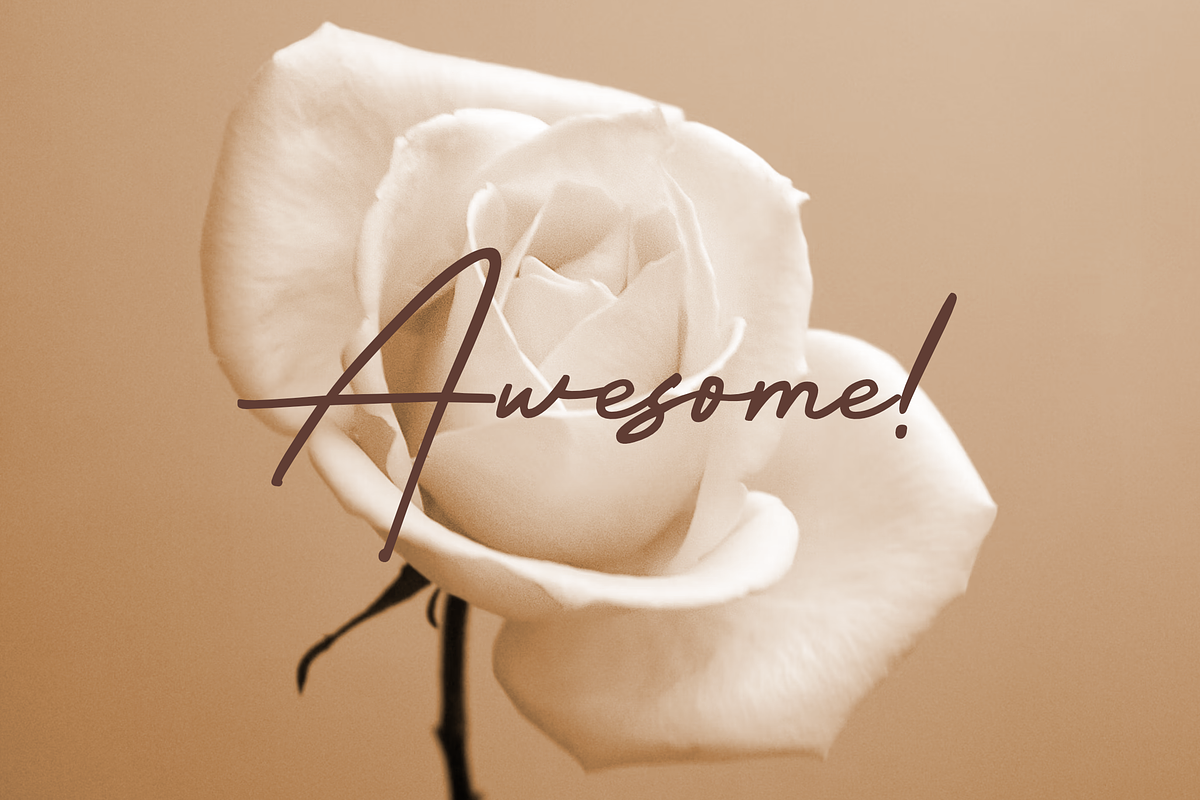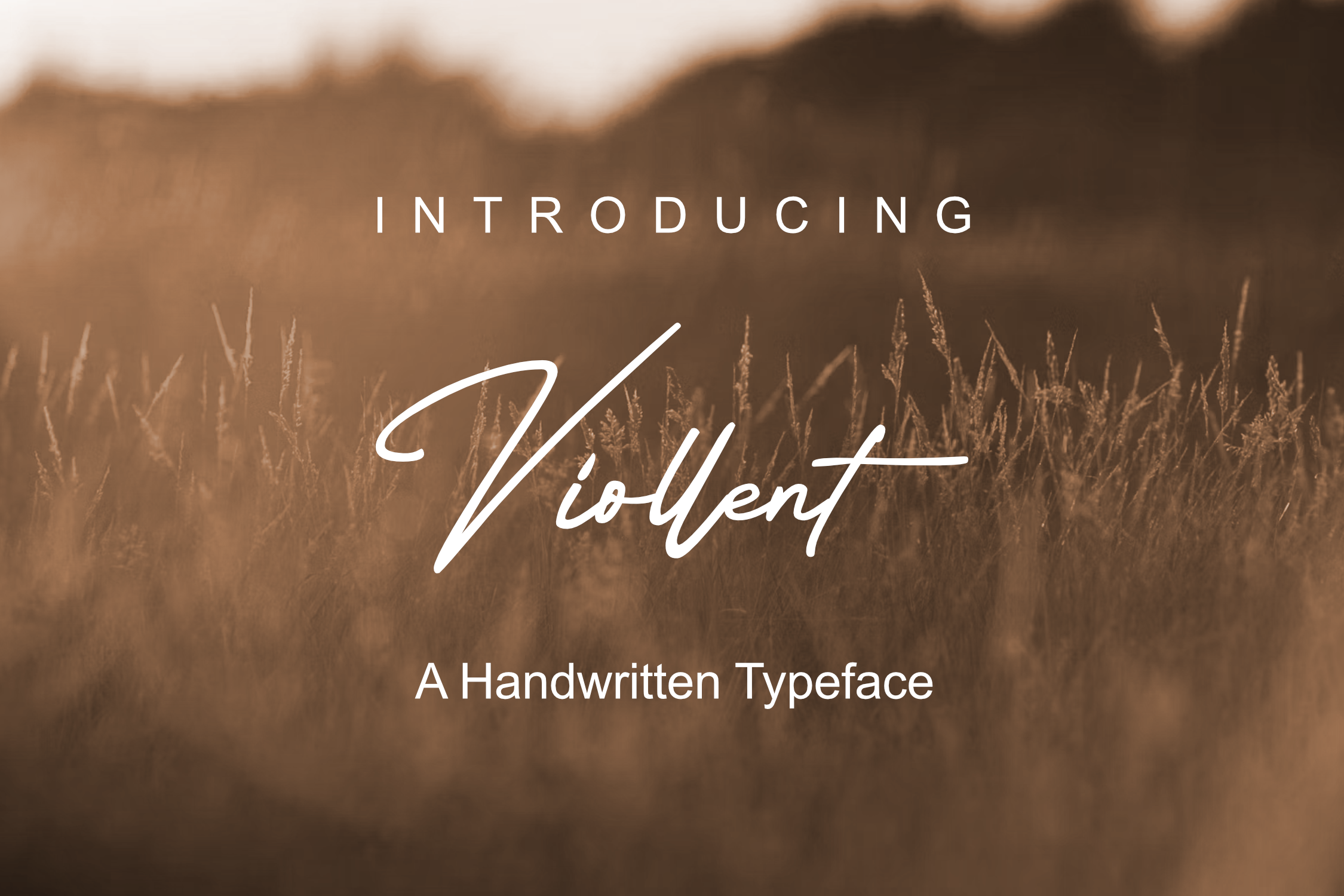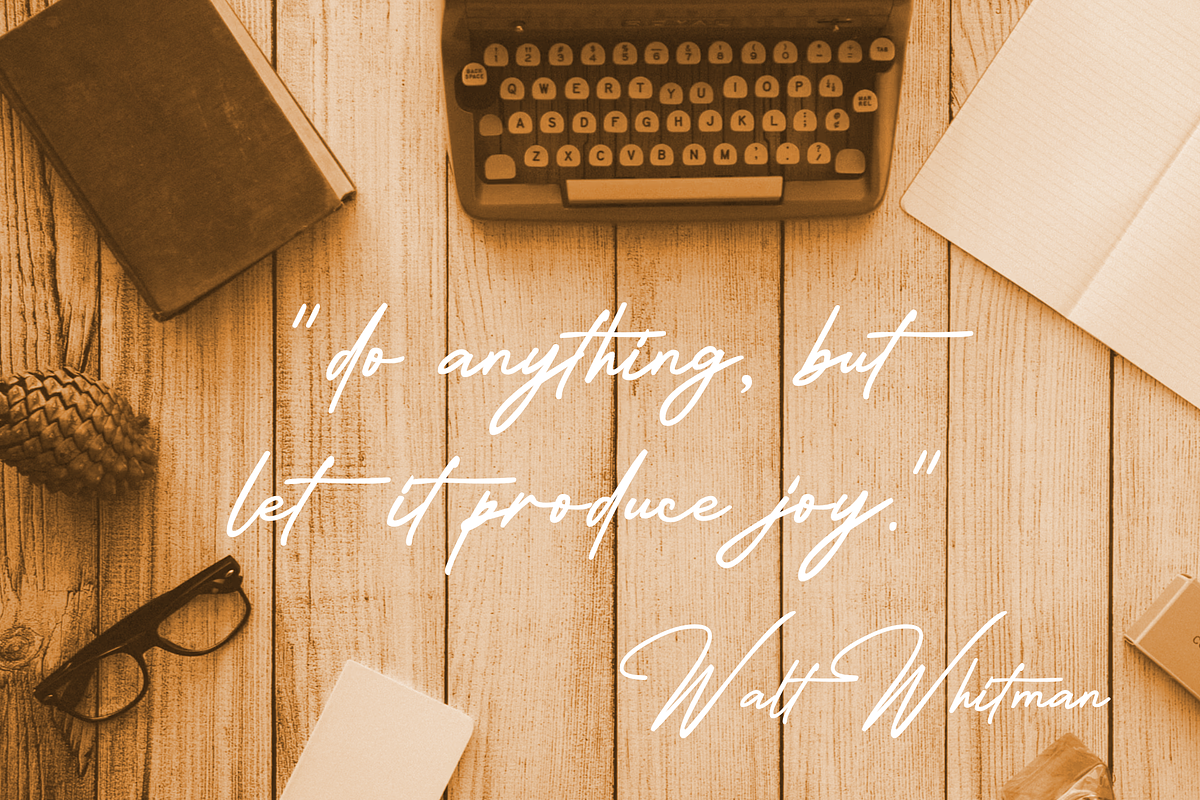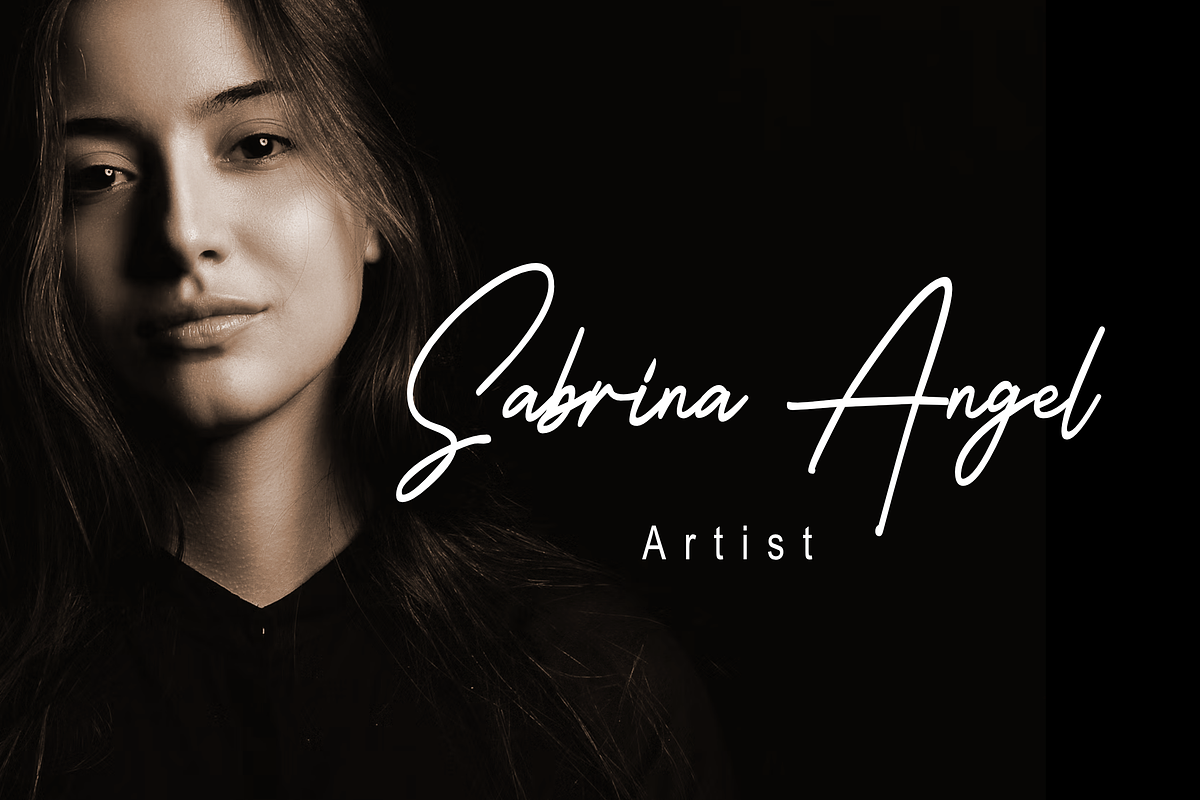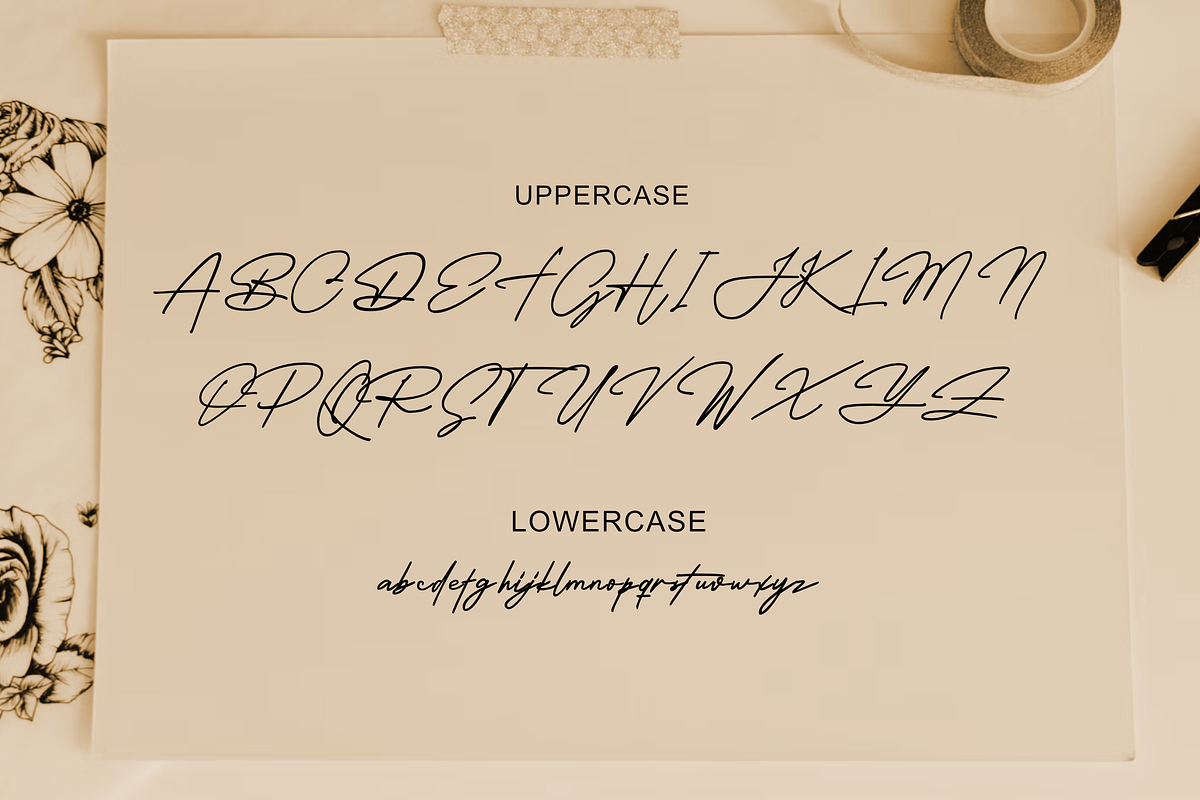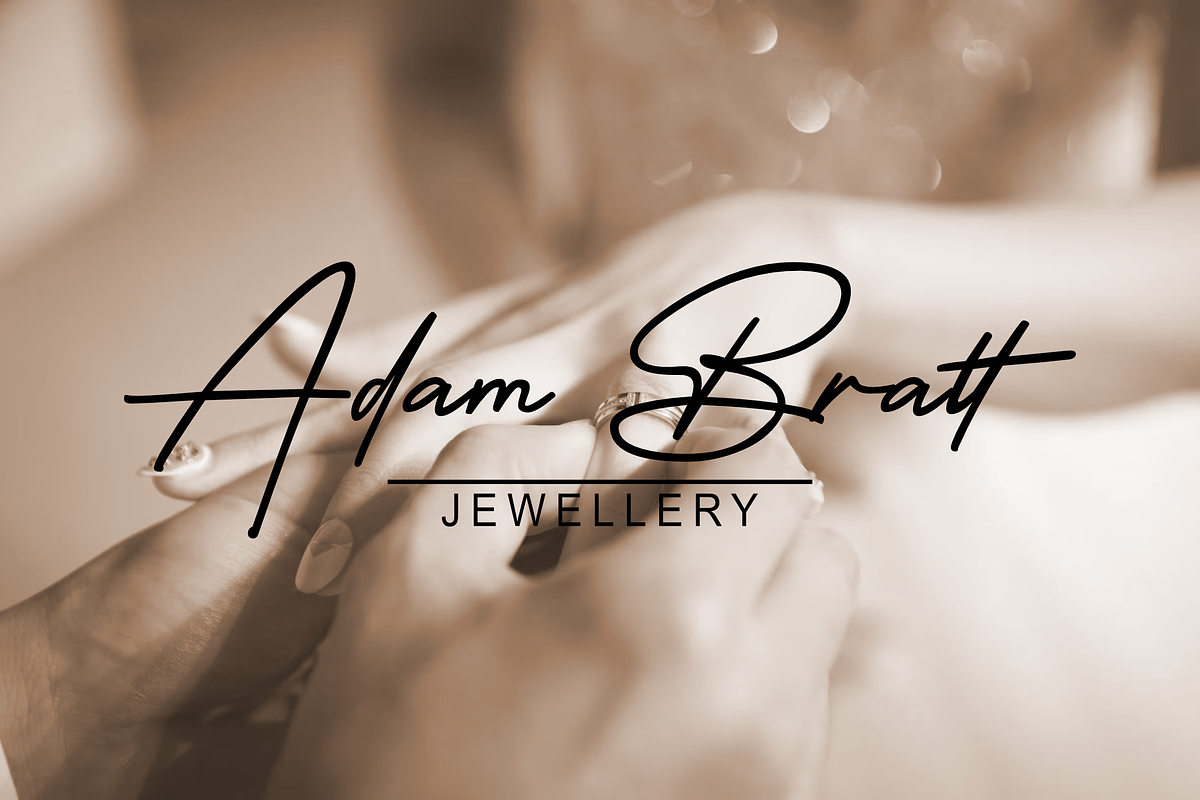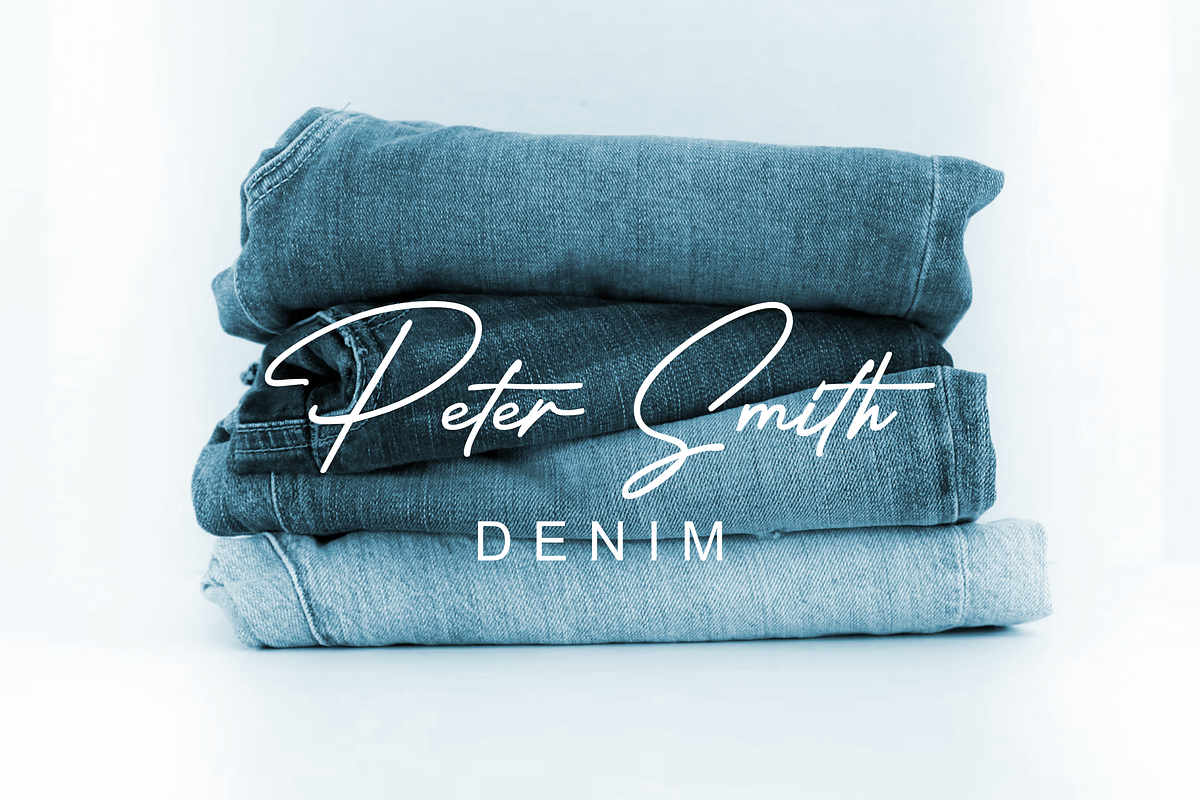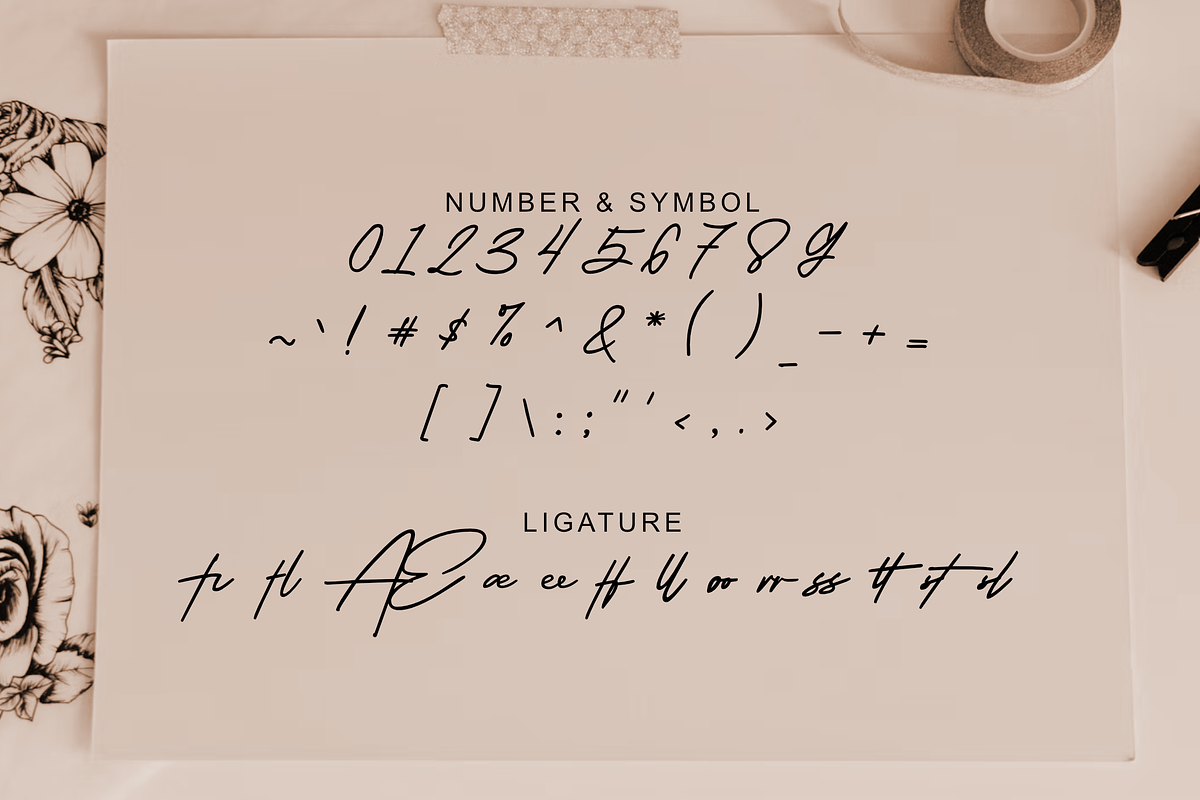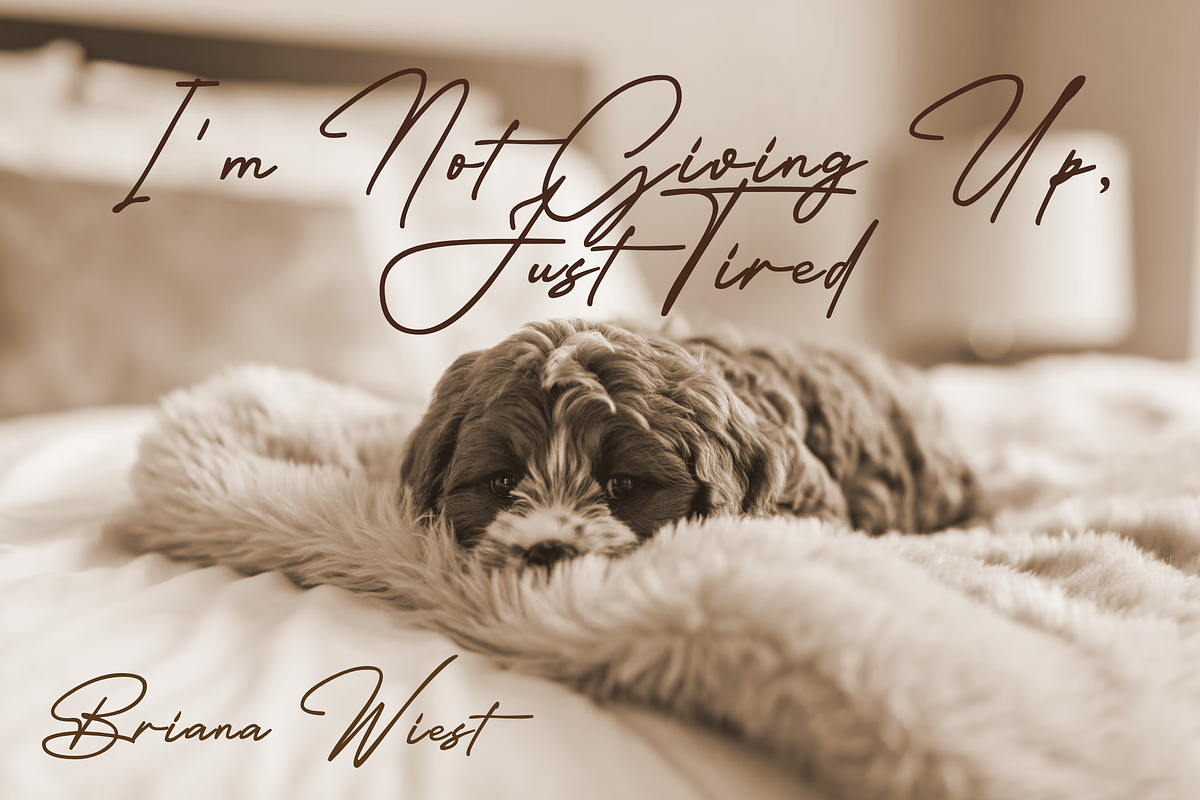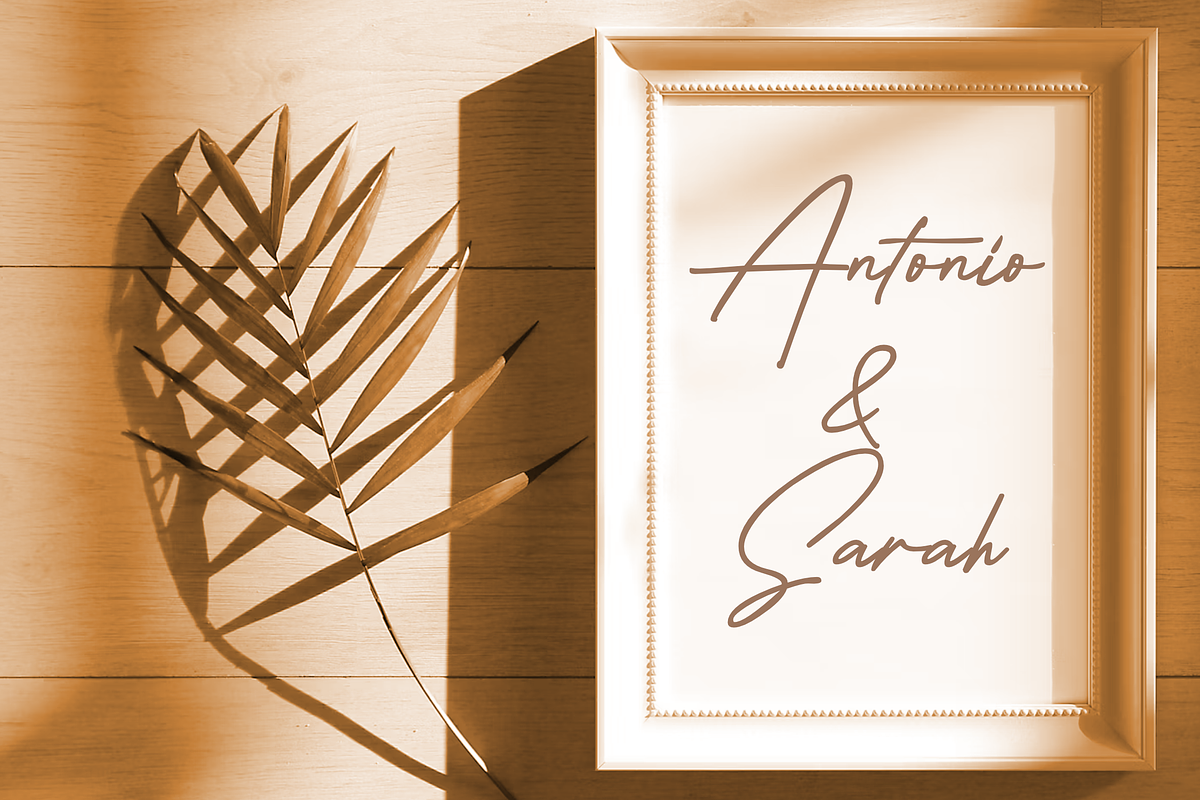
Viollents - Handwritten Font
Introducing Viollents, a handcrafted font that exudes a natural and authentic charm, perfect for projects that require a touch of organic elegance. Designed with meticulous attention to detail, Viollents features a set of beautifully executed ligatures that enhance its fluidity and provide a seamless writing experience, mimicking genuine handwritten text. Each stroke in the Viollents font is carefully crafted to maintain consistency while showcasing the unique characteristics of hand-drawn artistry. This typeface is ideal for branding, invitations, and any design project where a personal, crafted feel is desired. The natural flair of Viollents, combined with its accessible and engaging ligatures, ensures that it stands out in both digital and print formats. Elevate your design with Viollents, where the beauty of natural handwriting meets the versatility of a professional font.